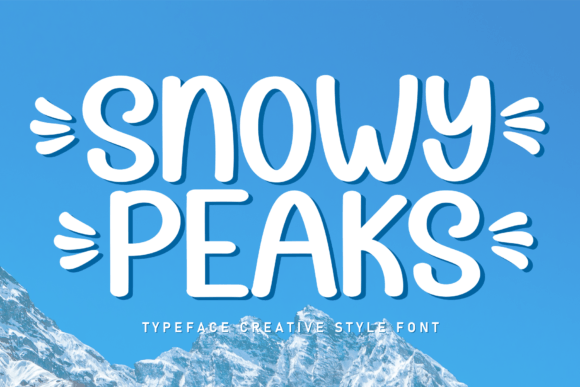
Journey into a realm of elegance and creativity with Snowy Peaks Font, a captivating script typeface designed to transport your designs to new heights of visual allure. Its sweeping strokes and playful charm evoke a sense of warmth and whimsy, making it the perfect choice for fashion websites, branding, and projects seeking a touch of personality.
Immerse yourself in the font's enchanting curves, meticulously crafted to evoke a sense of joy and playfulness. Each character dances across the page like a delicate snowflake, adding a touch of magic to your words. Let Snowy Peaks Font elevate your designs, transforming them into stunning works of art that capture the essence of your brand.
With its versatility and charm, Snowy Peaks Font becomes an indispensable tool in the arsenal of creative professionals. Whether you're crafting wedding invitations, designing websites, or creating marketing materials, this font effortlessly adapts to your vision, adding a touch of sophistication and elegance to every project. Unleash your imagination and let Snowy Peaks Font guide you towards creative brilliance.
Snowy Peaks Font stands as a testament to the timeless allure of handwritten scripts, capturing the essence of artistry and expression. Its whimsical nature invites you to embrace your creativity, to embark on a journey of self-expression where your words take on a life of their own.
Step into the world of Snowy Peaks Font, where dreams take shape, and magic unfurls with every stroke. Experience the delight of using a font that feels like a warm embrace, a gentle whisper that carries your message with grace and charm. Unleash the power of creativity, let your imagination soar, and watch as Snowy Peaks Font transforms your designs into masterpieces that resonate with your audience.